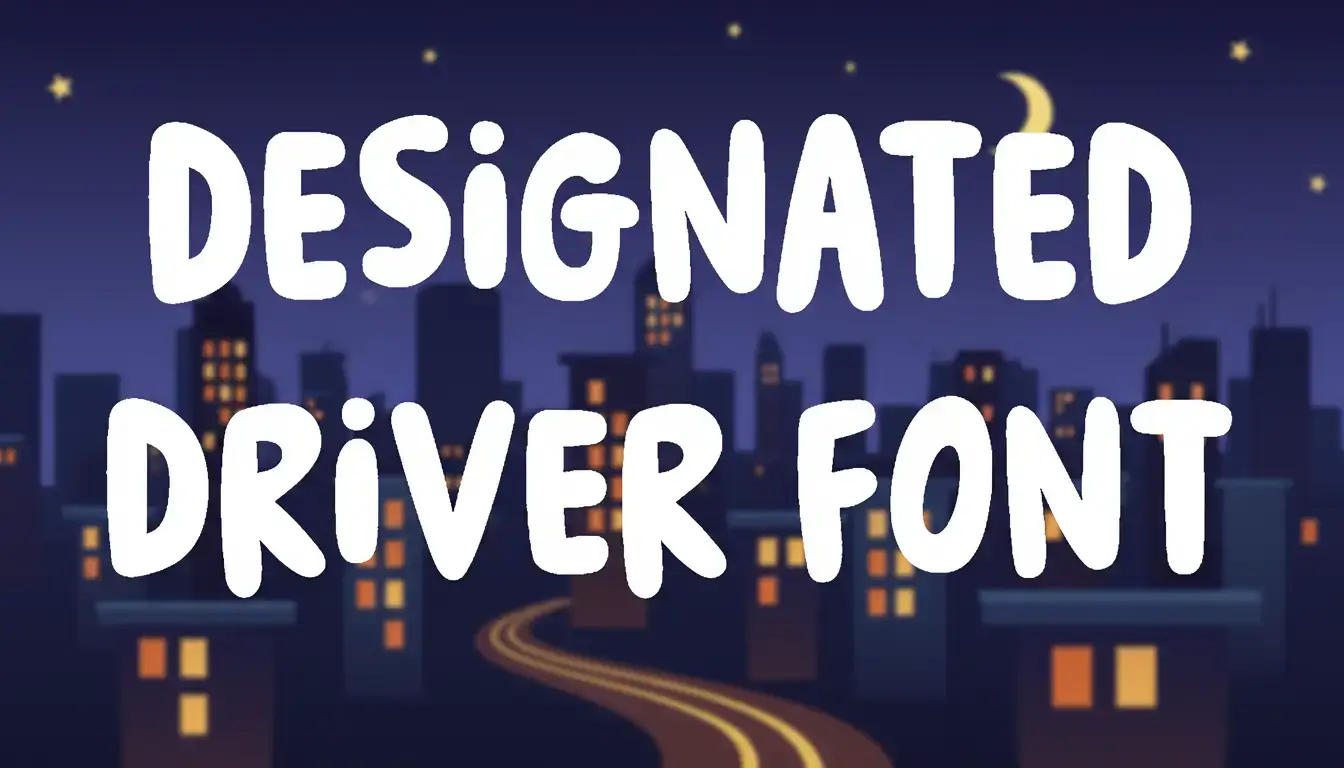
Designated Driver Font
Designated Driver
Designated Driver is a fancy font made by Jakob Fischer / pizzadude.dk. Bold and full of character, it's built to stand out rather than blend in. You can download it for free and test it with your own words in the preview above.
Designated Driver covers the full alphabet in upper and lowercase, plus all ten numbers, so you can set names, dates and prices without switching fonts. Common punctuation such as &, !, ? and @ is included as well. It doesn't include accented letters such as é or ñ, which makes it an English-only font.
Think of Designated Driver for posters, logos and eye-catching headlines. Use it for one standout word or headline and let simpler fonts handle the rest.
No. Designated Driver has no accented letters such as é, ñ or ü, so it's best for English text.